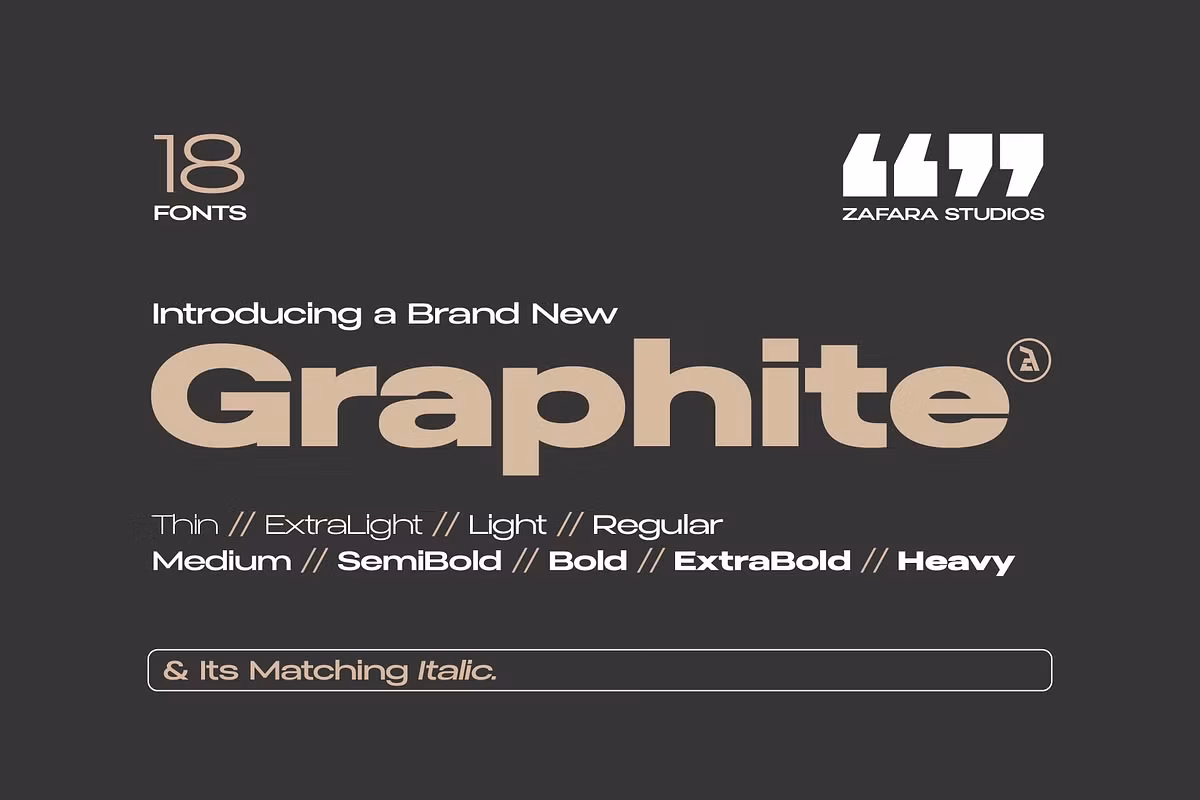
Graphite - Wide sans serif family Free Download
Graphite - Wide Sans Serif Family Free Download is a modern and expansive typeface designed for maximum readability and visual impact. Ideal for branding, tech design, advertising, and web interfaces, its wide stance and clean lines make it a versatile choice for contemporary projects. Please note that you must purchase this font for commercial use, but it is available as a free download for testing purposes. Whether you're creating bold headlines or sleek UI designs, Graphite - Wide Sans Serif Family Free Download brings clarity, balance, and professional style to every layout.